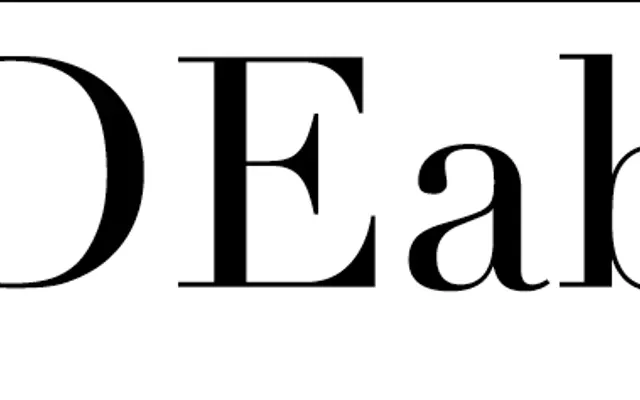
Stem
Muirmcneil · 2016
A display type system derived from neoclassical Didot and Bodoni models, pushed to geometric extremes across five weights in matching roman and italic styles.
Developed from Cut, MuirMcNeil's earlier stencil typeface, Stem applies the systematic construction methods of early twentieth-century geometric type to the extreme contrast and vertical axis of late eighteenth-century neoclassical serifs. Stem Thin reduces letterforms to hairline strokes with detached razor-sharp serifs, intended solely for very large display use, while Stem Thick offers enough structural weight to hold at smaller display sizes. The collection spans five weights in both roman and italic, each sharing a rational, reductive approach to letterform assembly.
Stem is a display type system modelled on late eighteenth-century neoclassical types by Didot and Bodoni, featuring extreme contrast, vertical axis and sharp serifs taken to geometric extremes; its systematic constructed approach places it firmly in the display category.